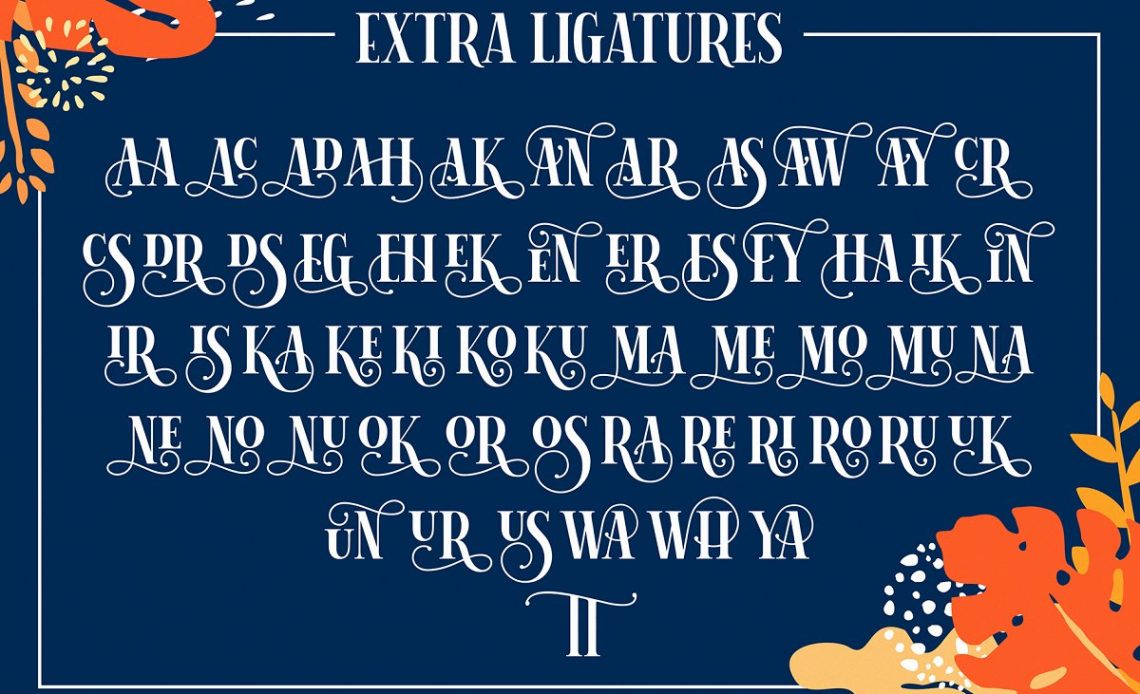
Introducing Herina Font + Extra - the best font for display board designed by Teuku Dq Firnanda. This uppercase serif font is the perfect blend of vintage and modern typography, featuring charming curves and abstract shapes that give a unique and modern impression.
Herina Font + Extra is not just a simple font, but a versatile design tool that allows for endless creative possibilities. With its wide range of standard ligature and stylistic alternates, you can use this font for various design projects such as logos, posters, packaging, T-shirts, postcards, and much more.
But that's not all - with the bonus of 30 shapes element included in this presentation, you can elevate your designs and make them stand out from the crowd. Plus, Herina Font + Extra is supported by PUA encoded, making it easy to access alternate characters using various software programs.
Herina Font + Extra is more than just a font, it's an experience. It evokes emotions of nostalgia and charm, while also showcasing modern design elements that make it perfect for any project.